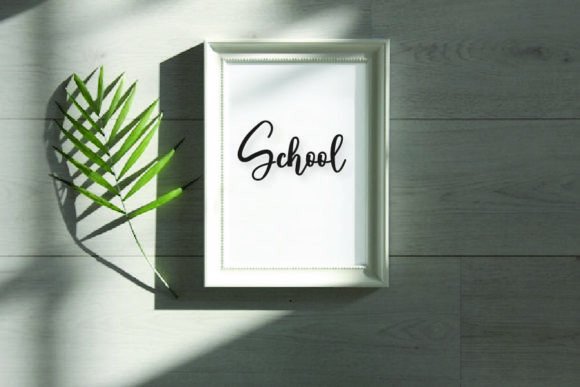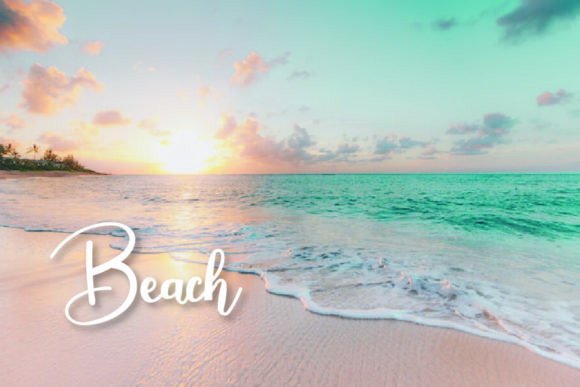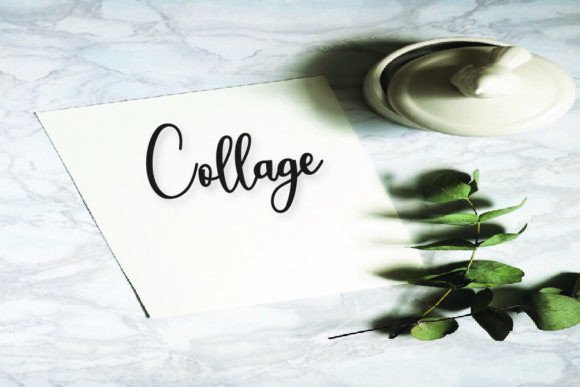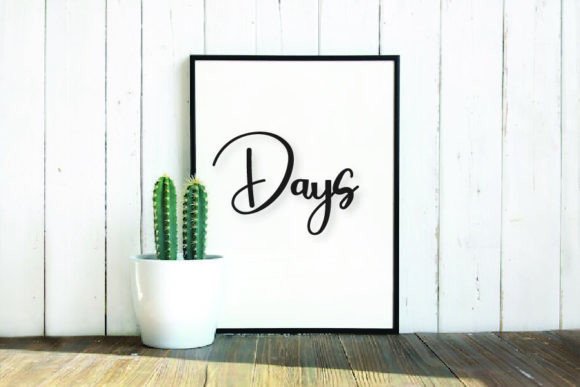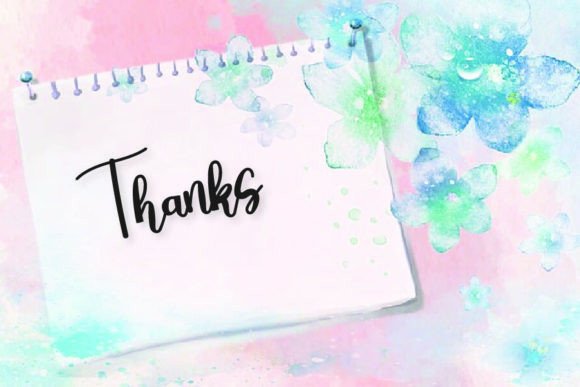
The Sweet Spot: Discovering the Charm of Aura Font
I still remember the design project that led me to discover Aura Font. I was working on a whimsical children’s book, and my client requested a font that would infuse the story with a playful, innocent vibe. As I scoured the internet for the perfect match, I stumbled upon Aura – a sweet and friendly handwritten font that instantly won my heart. Its charming letterforms and endearing aesthetic made it an ideal choice for the project, and I knew right then that I’d found a gem.
- ✨ Adorable letterforms: Aura’s handcrafted feel makes it perfect for designs that require a personal touch.
- ✅ Easy to read: Despite its whimsical nature, Aura remains clear and legible, even at smaller font sizes.
- 💕 Versatile: This font is suitable for a wide range of creative projects, from children’s books to greeting cards and social media graphics.
- 🎨 Customizable: With OpenType features and glyphs, you can experiment with different stylistic alternates to make your design truly unique.
Small Quirks and Limitations 🤔
- ⚠️ Limited use in formal contexts: Aura’s playful nature makes it less suitable for formal or professional designs, such as business reports or academic papers.
- 🤔 Kerning issues: As with any handwritten font, some users may experience kerning issues, particularly when using all-caps or mixing with other fonts.
The Story Behind Aura Font: A Designer Inspiration
Aura Font was created by a talented type designer who aimed to craft a font that would evoke a sense of warmth and playfulness. Inspired by childhood memories of handwritten letters and doodles, the designer poured their heart into creating a font that would bring a smile to people’s faces. With Aura, they succeeded in creating a font that’s both whimsical and endearing – a perfect addition to any design project.
| Font Name | Aura Font |
| Author | AA studio |
| What type of projects is Aura Font best suited for? | Aura Font is ideal for creative projects that require a playful, innocent vibe, such as children’s books, greeting cards, and social media graphics. |
| Is Aura Font suitable for body text? | While Aura Font is legible, it’s best suited for headings or short paragraphs due to its playful, handwritten nature. |